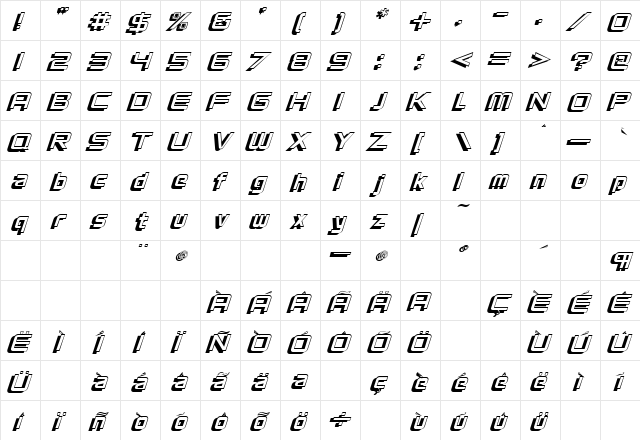
VentureShadowOblique Regular
Design Context for VentureShadowOblique Typeface
VentureShadowOblique brings ornamental detail and strong personality to headlines and identities, where visual impact matters more than quiet functionality. Its italic angle brings a sense of urgency and motion to the letterforms.
Font Pairing: Pair with a clean neutral sans-serif for body copy to let VentureShadowOblique's character lead without overwhelming the composition.
Pro Tip: Use VentureShadowOblique exclusively at display sizes — it was designed to be seen, not read at length. Let a neutral companion handle body copy.